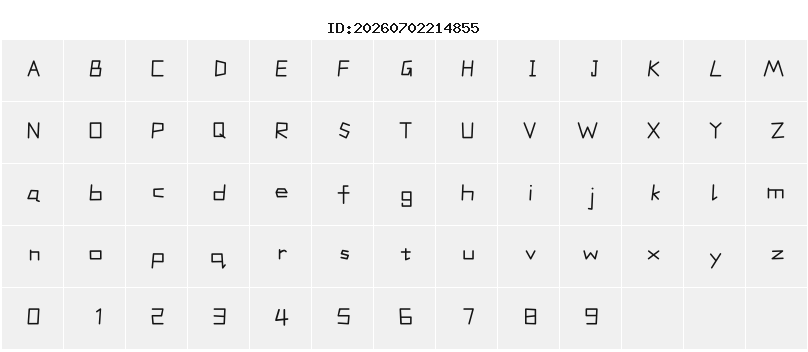
023-上首布丁体 Preview
• Font Name: 023-上首布丁体
• Font ID: 023-SSBuDingTi:Version 6.00
• Full Font Name: 023-上首布丁体
• Version: Version 6.00 August 9, 2021
• PostScript Name: 023-SSBuDingTi
• Character Count: 7569
• Manufacturer: 上首造字
About 023-上首布丁体.ttf
023-上首布丁体.ttf is a modern, elegant sans-serif font designed for ultimate readability and visual harmony. Perfect for branding, headlines, web design, and print materials.